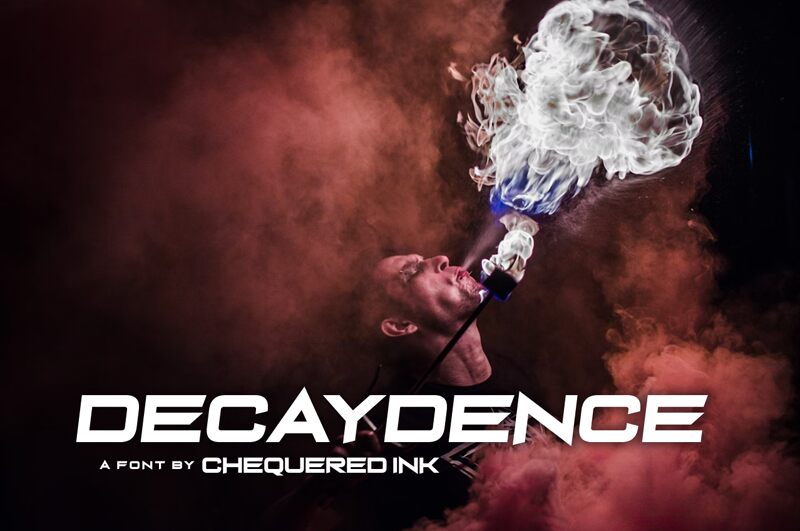
Decaydence
Decaydence font by Chequered Ink merges gothic allure with modern flair, showcasing an expanded style that commands attention. Its bold and striking design is perfect for creating distinctive headlines and eye-catching posters.
The expanded width gives each character room to breathe, enhancing readability without sacrificing dramatic impact. Ideal for designers seeking a free font download, Decaydence excels in projects where a blend of sophistication and boldness is desired. Whether for branding, editorial design, or digital content, this modern gothic font adds a unique edge that sets your work apart.
Embrace the bold artistry of Decaydence to transform your creative endeavors into unforgettable statements.